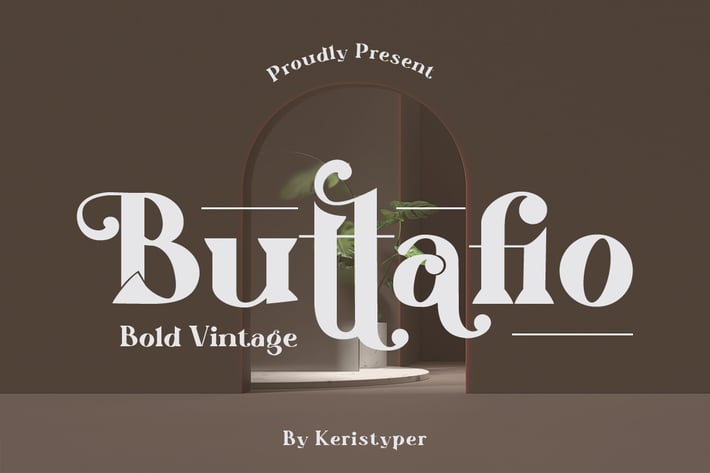
Buttafio Font
Buttafio is a stylish vintage font inspired by a groovy vibe with a touch of modernity. The appearance of the curves is in the form of light, free-flowing brush strokes. This font is good for logo design, Social media, Movie Titles, Books Titles, short text even long text letters, and good for your secondary text font with sans or serif.
Standard Uppercase & Lowercase
Multilingual : ä ö ü Ä Ö Ü ß ¿ ¡
Alternate & Ligature